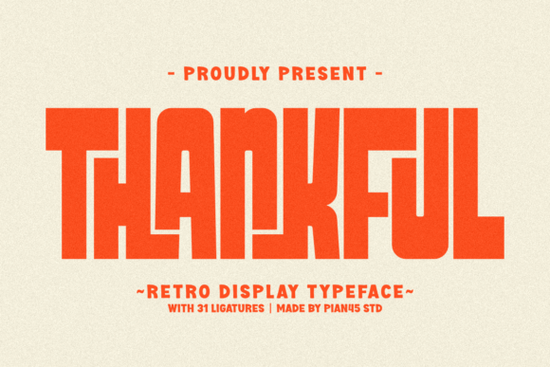
If you're looking for a bold, festive font that brings warmth and nostalgia to your holiday designs, Thankful Font is a standout choice. It’s not just another Christmas typeface it’s a retro display font with personality, built for impact. Whether you’re designing Thanksgiving banners, holiday merchandise, vintage-style apparel, or event posters, this chunky, blocky typeface adds instant charm and character.
What makes Thankful Font special?
Unlike sleek modern fonts, Thankful stands out with its soft curves, generous spacing, and playful ligatures. The design feels handcrafted and full of life like something you’d see on a 70s-era holiday card or a roadside diner sign during the holidays. Its thick strokes give it presence on any medium, from digital graphics to printed T-shirts and vinyl decals.
The font works well in both color and monochrome formats, making it versatile for different branding needs. You can use it for headlines, logos, or even as a central design element. Because of its high visibility and strong visual identity, it’s ideal for print-on-demand projects where standing out matters.
Perfect for seasonal and vintage-inspired projects
Designers love using Thankful Font for holiday-themed work because it captures the spirit of the season without feeling cliché. It’s especially effective for:
- Christmas gift tags and packaging
- Thanksgiving festival flyers and social media posts
- Vintage band tees or retro apparel lines
- Event posters for local holiday markets or community gatherings
- Custom stickers, mugs, and home decor items
It pairs well with warm tones like red, gold, olive green, and cream colors often associated with the fall and winter seasons. But don’t limit it to just holidays. The retro vibe also fits 70s-inspired themes, which are popular in fashion, branding, and craft projects right now.
Where else can you use this font?
Beyond holiday design, Thankful Font has a place in broader creative work. Crafters and small business owners use it for product labels, seasonal collections, and promotional materials. Its bold structure ensures readability at a glance, which is essential when your message needs to be seen quickly whether on a storefront window or an Instagram ad.
For best results, pair it with simpler fonts for body text. Let Thankful Font shine as the headline it’s meant to be noticed.